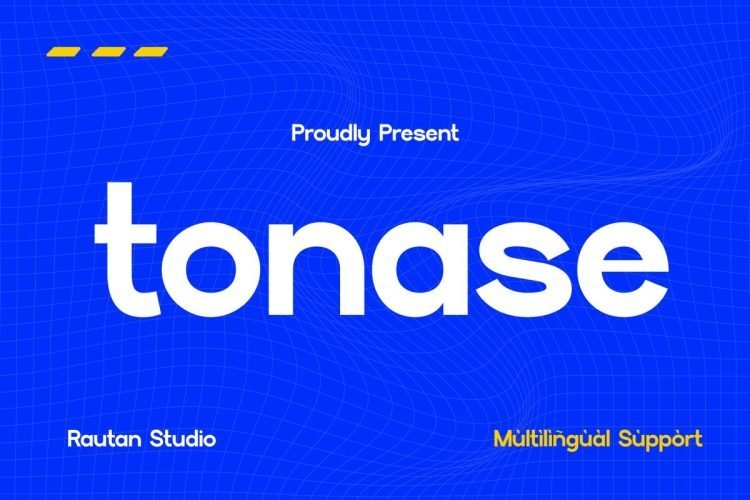
Tonase Font
Tonase is a bold, modern display sans-serif font with clean geometric shapes and smooth, confident curves. Its wide, friendly letters have a contemporary feel, and the sharp terminal cuts give it a touch of tech style without looking too futuristic.
Tonase works well for tech startup branding, app interfaces, modern signs, product packaging, and bold headlines. It’s a great choice for projects that need a clean, high-quality look, like website banners, landing page headers.